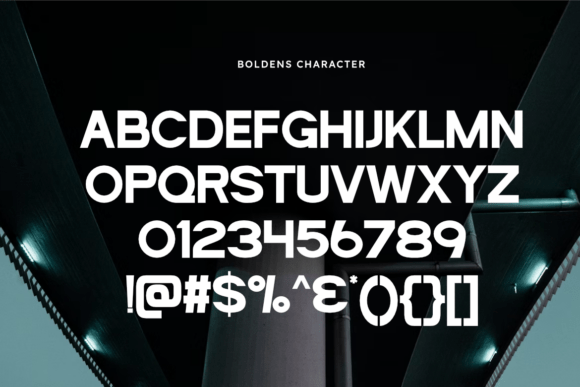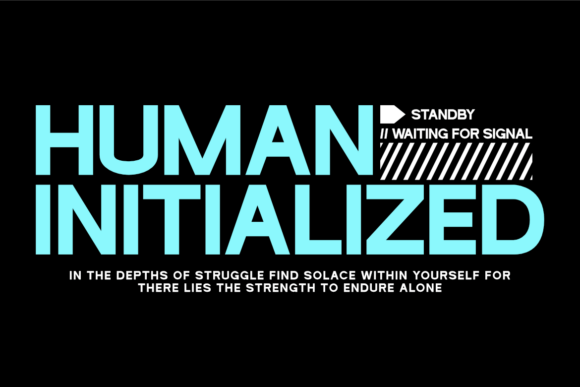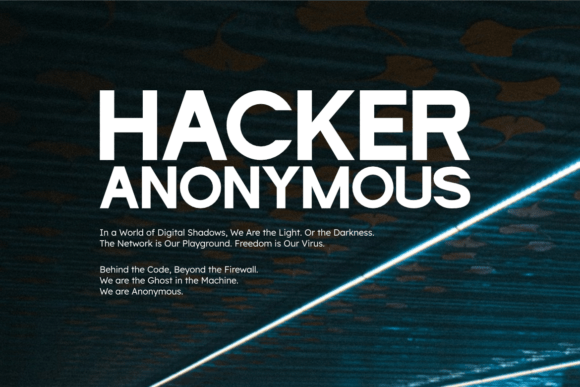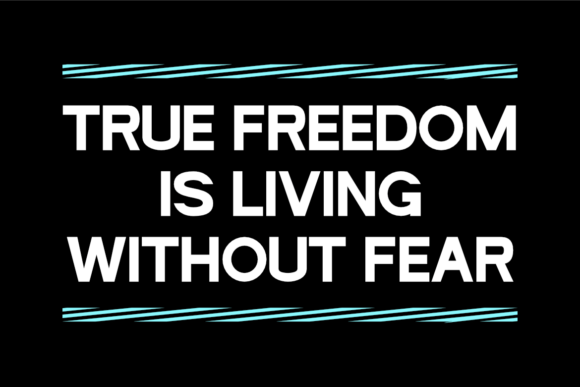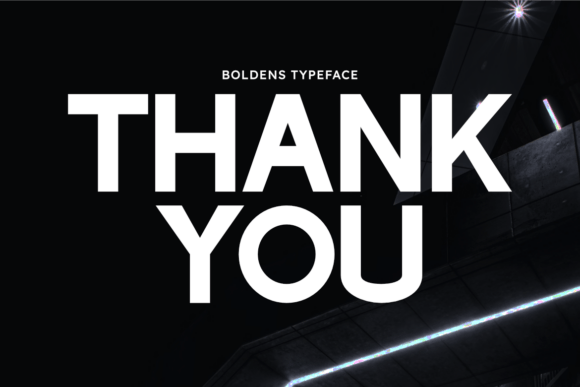
Introducing Boldens Font: The Ultimate Modern Sans-Serif for Impactful Designs
In the world of typography, a font can make or break a design. When it comes to creating bold statements, eye-catching posters, and strong branding, the right typeface is essential. This is where Boldens Font comes into play – a modern sans-serif font designed with bold weight and a clean, geometric style that elevates any project to new heights.
The Power of Boldens Font
Boldens is more than just a font – it’s a design statement. With its bold weight and sleek lines, this typeface brings a professional and contemporary look to any project. Whether you’re working on a title, a logo, or a poster, Boldens ensures that your message is conveyed with clarity and confidence. Its clean and geometric style makes it perfect for creating impactful designs that demand attention.
Multilingual Support for Global Reach
In today’s globalized world, designs need to transcend language barriers. Boldens Font understands this need, offering multilingual support that allows designers to create content for diverse audiences. Whether you’re targeting a local market or a global one, Boldens ensures that your message is conveyed clearly and effectively, regardless of the language.
Versatile Usability for Various Projects
Boldens is not just limited to one type of project. Its versatility makes it suitable for a wide range of applications, including:
- Editorial Layouts: Use Boldens to create striking headlines and titles for magazines, newspapers, and online publications.
- Social Media Graphics: Elevate your social media presence with bold and eye-catching graphics that grab attention.
- Logo Design: Create memorable and impactful logos that represent your brand’s personality.
- Advertising: Use Boldens to create bold and persuasive ads that drive results.
- Packaging: Make your product stand out on store shelves with bold and eye-catching packaging designs.
Why Choose Boldens Font?
With so many fonts available, why choose Boldens? Here are a few compelling reasons:
- Professional Look: Boldens brings a professional and contemporary look to any project, making it perfect for designers and businesses.
- Easy to Read: Despite its bold weight, Boldens is easy to read, even at smaller sizes.
- Highly Versatile: Use Boldens for a wide range of projects, from digital content to print materials.
- Multilingual Support: Reach a global audience with Boldens’ multilingual support.
Tips for Using Boldens Font Effectively
To get the most out of Boldens Font, here are a few tips:
- Pair with Other Fonts: Combine Boldens with other fonts to create visual interest and hierarchy.
- Experiment with Sizes: Play with different sizes to create emphasis and contrast.
- Use for Headlines: Use Boldens for headlines and titles to create a bold statement.
- Limit for Body Text: While Boldens is easy to read, it’s best to limit its use for body text to maintain readability.
In conclusion, Boldens Font is a powerful tool for designers and crafters looking to create impactful designs. With its bold weight, clean geometric style, and multilingual support, Boldens is perfect for a wide range of projects. Whether you’re working on digital content or print materials, Boldens ensures that your designs stand out with clarity and confidence. So why wait? Try Boldens Font today and take your designs to the next level!